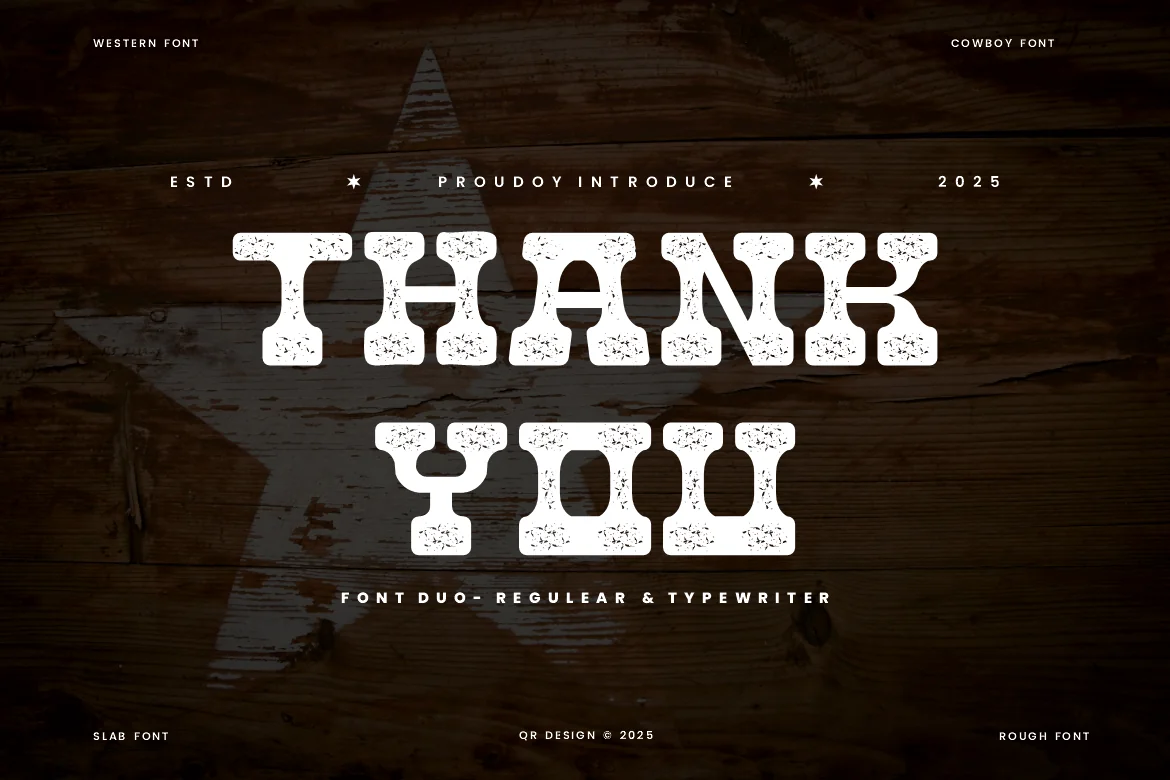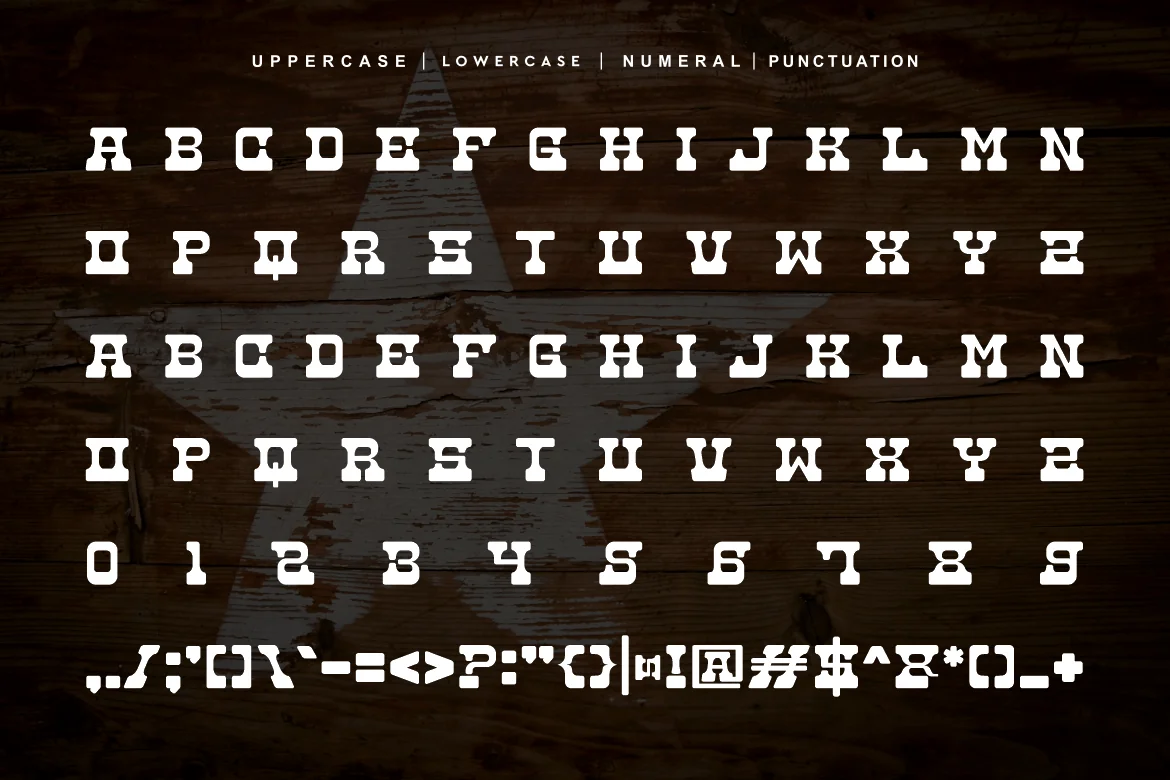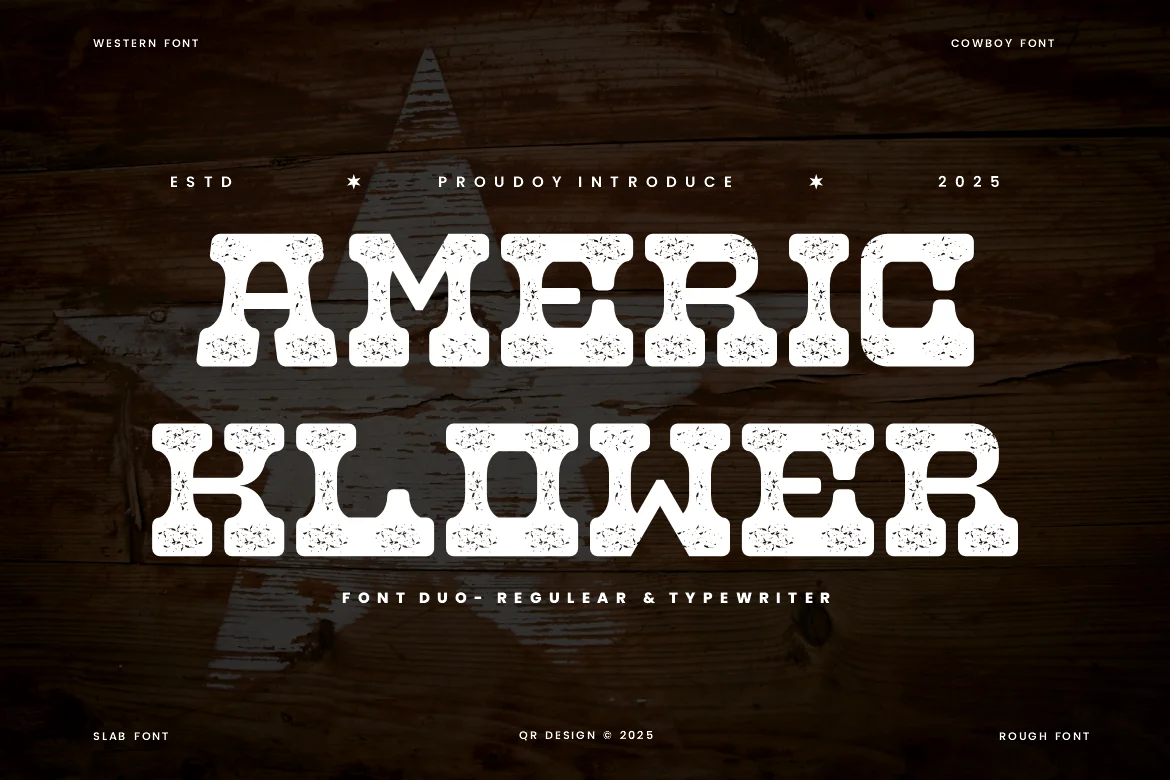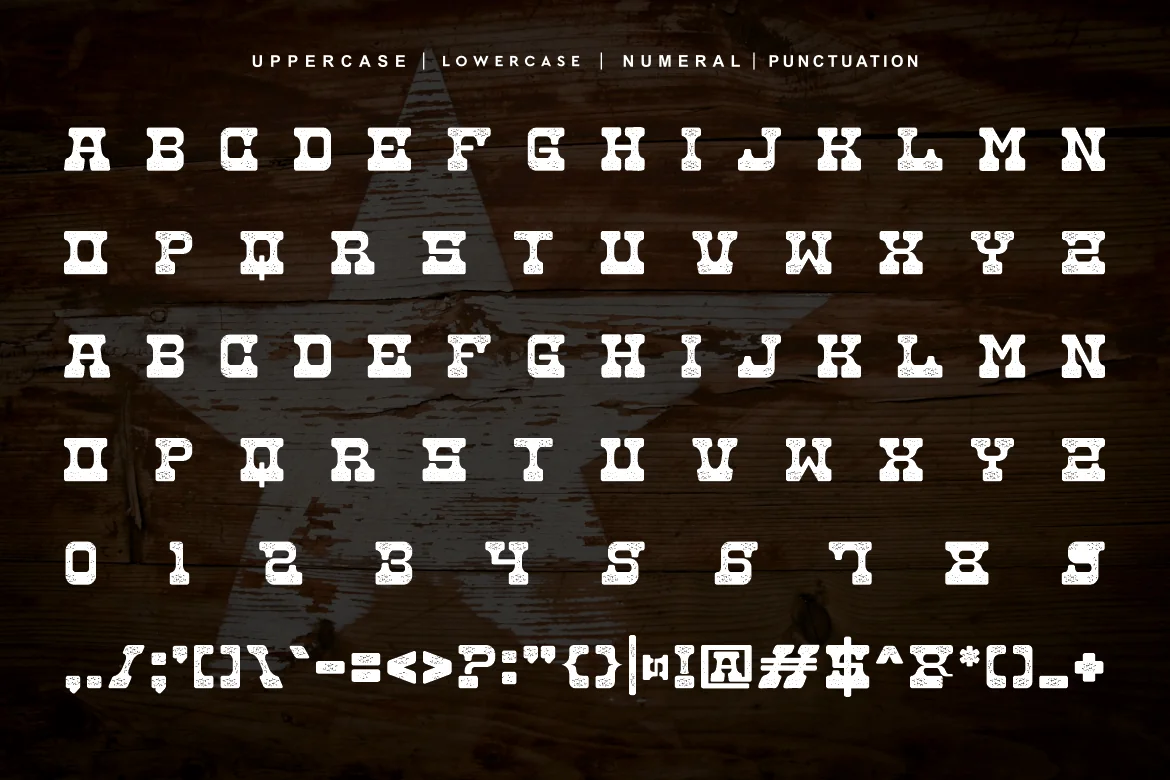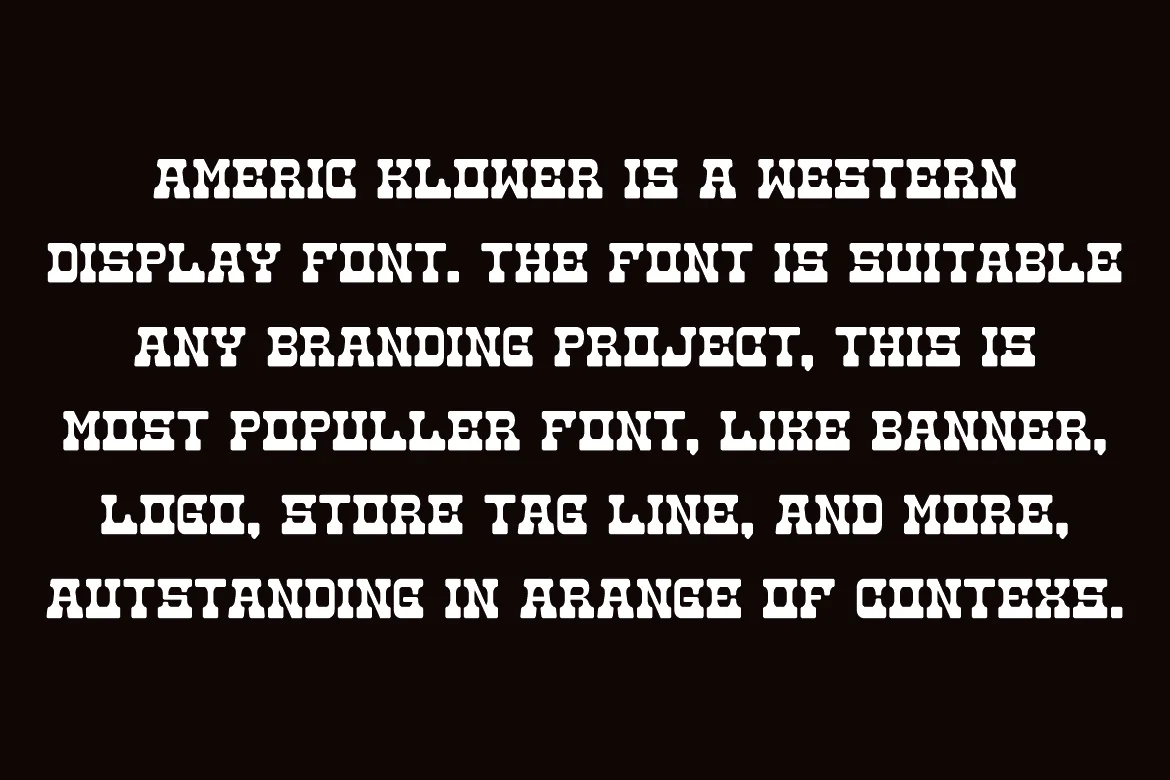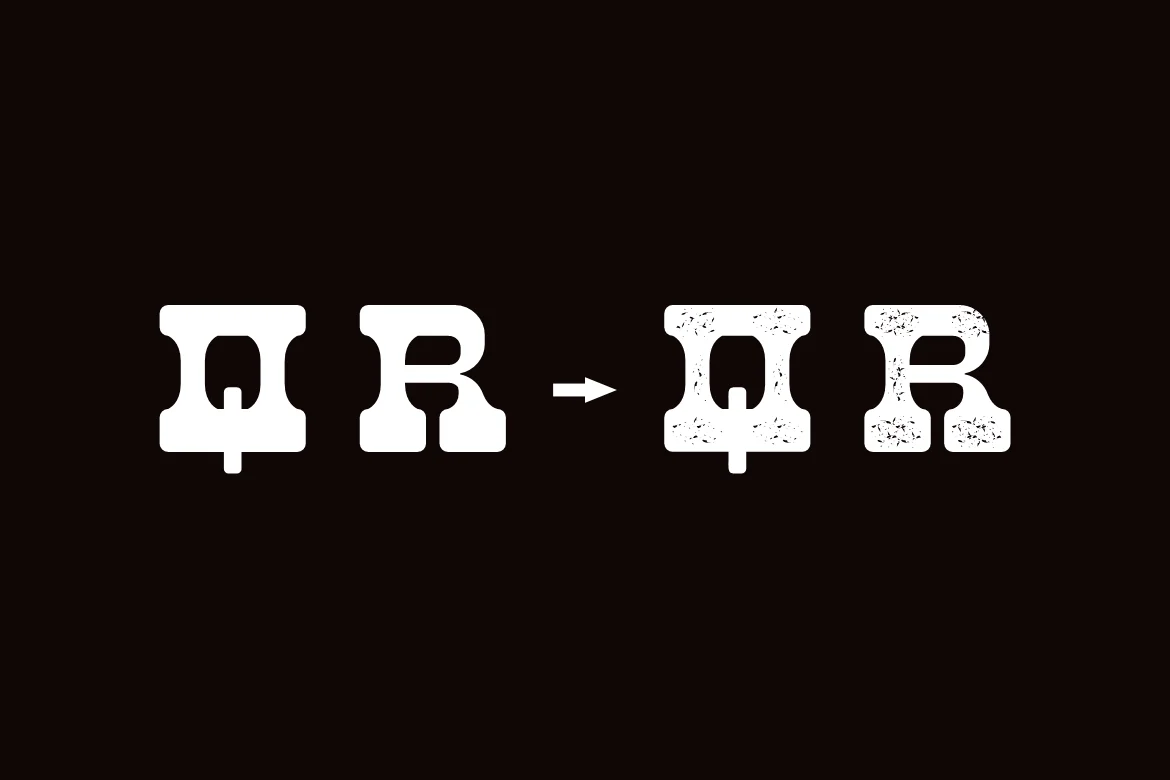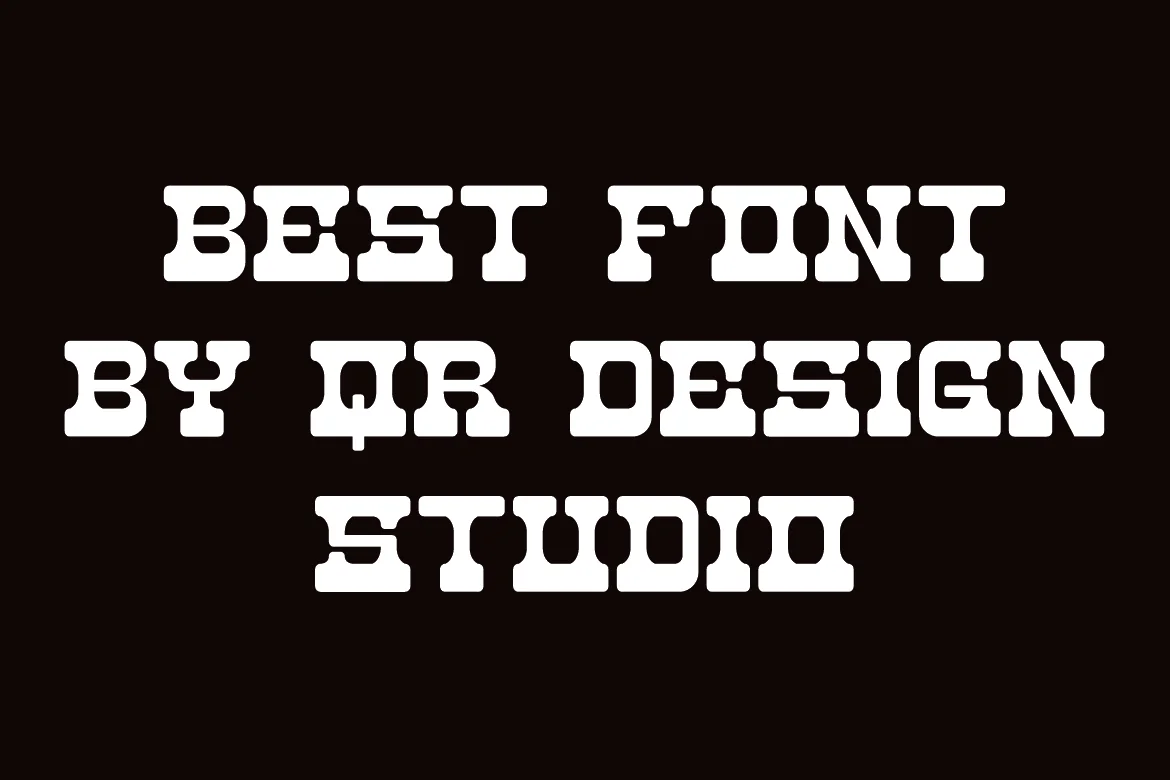
Americ Klower – Western & Rought Font
Description
Americ Klower Font is a Western font. The font is suitable for any branding project like stylish, poster, logo, sport, and many more. Outstanding in a wide range of contexts.